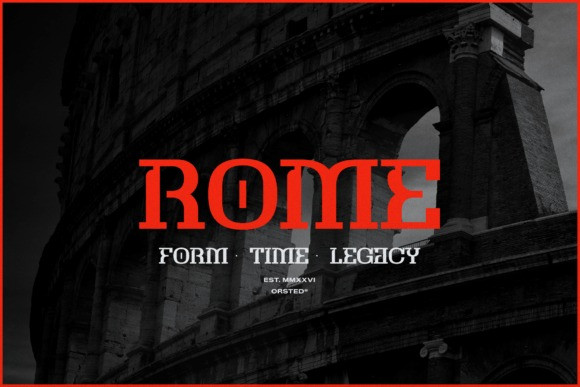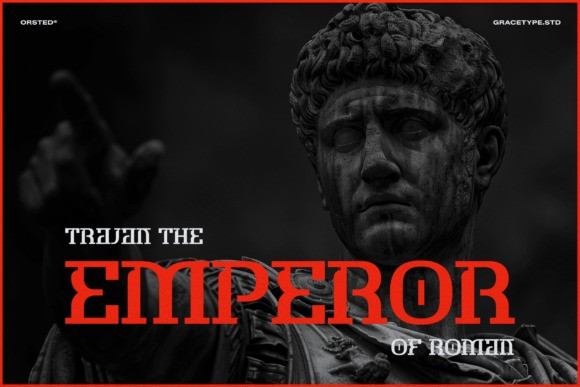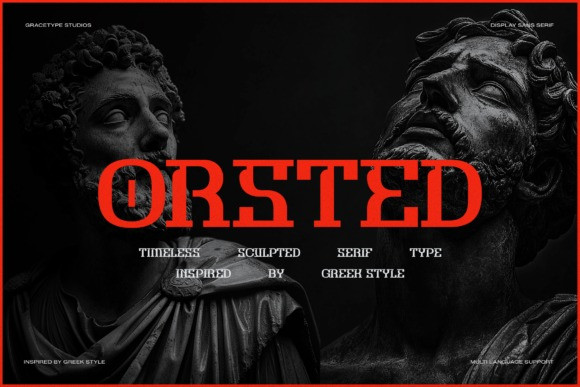
Orsted Font
Orsted Font a bold display serif that bridges the gap between ancient stone masonry and modern brutalist design. This typeface features heavy, architectural letterforms with unique “incised” junctions and sharp, slab-like serifs that evoke the soul of a Greek temple carved into a mountainside. With its authoritative weight and chiseled rhythm, Orsted is the premier choice for luxury museum exhibitions, independent historical publishing, high-concept streetwear branding, and cinematic “epic-odyssey” social media headers.